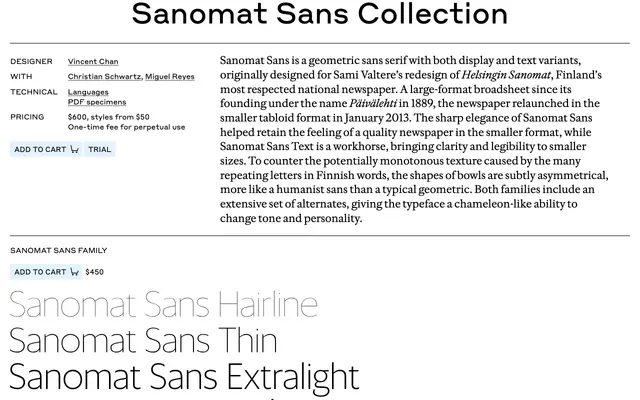
Sanomat Sans
Commercial Type · Vincent Chan
The sans companion to Sanomat from Commercial Type, with a Display set running to a Stencil Black and a Text cut tuned for running copy.
A two-axis sans by Vincent Chan with Christian Schwartz and Miguel Reyes, conceived as the sans counterpart to Sanomat. The Display family carries ten weights from Hairline to Black plus a Stencil Black, all with matching italics, for headlines and posters. Sanomat Sans Text trims the range to seven workhorse weights with italics, drawn for running copy at smaller sizes. Sits in newspaper and magazine systems where you need a single sans voice to flex from masthead to caption.
Commercial Type's sans companion to Sanomat, drawn by Vincent Chan with Christian Schwartz and Miguel Reyes. The collection runs from a Display set with extreme weights, including a Stencil Black, through to a Text set tuned for running copy.